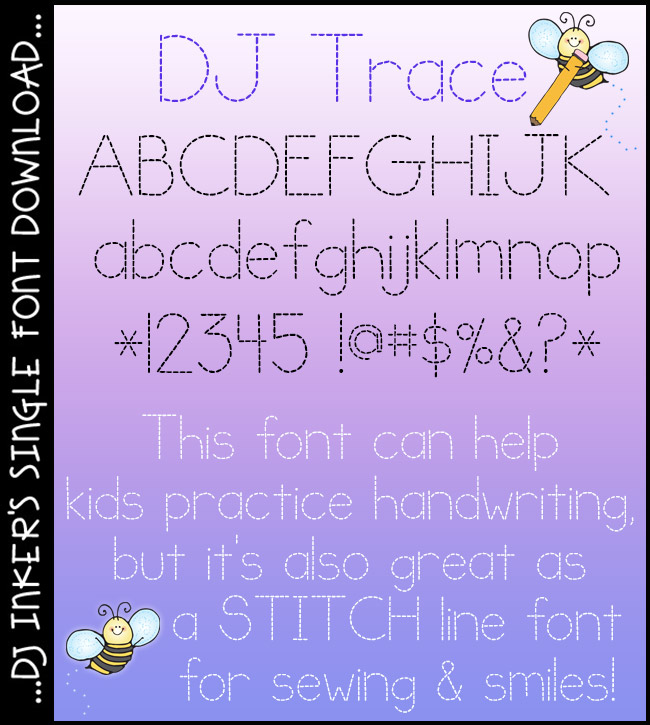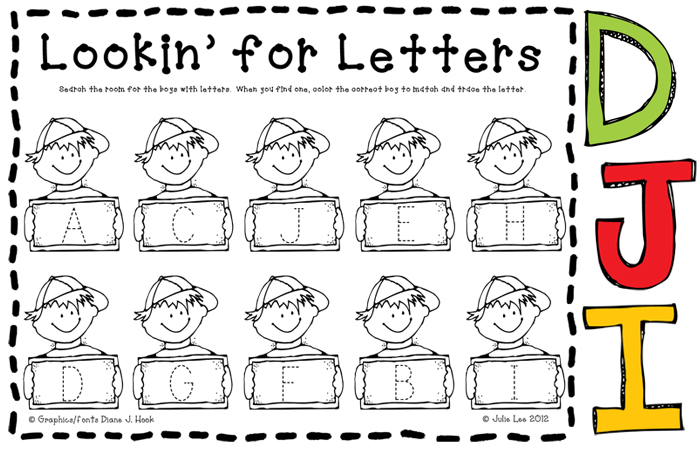
DJ Trace is a handwriting font without the template by DJ Inkers
Take handwriting practice to a whole new level with our 'DJ Trace' font.  Create your own worksheets, templates and handwriting exercises with ease and a smile... because these letters are ready to simply type and trace.  Perfect for preschool, kindergarten and home practice.
Fun Tip:  this font is also great as a 'stitch' or sewing font!